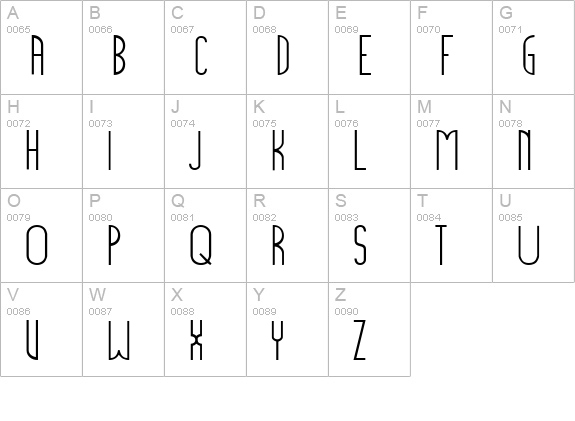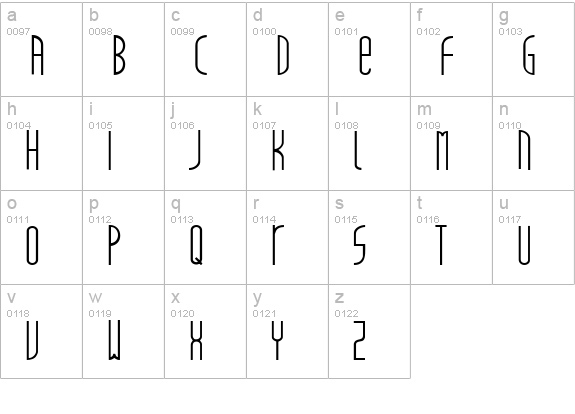
mainstreet Font Details
Mainstreet font is a beautifully crafted typeface that exudes a sense of elegance and sophistication. Its sleek and modern design makes it perfect for a wide range of projects, from logos and branding to posters and signage. With its clean lines and balanced proportions, Mainstreet font effortlessly catches the eye and adds a touch of professionalism to any design. What sets Mainstreet font apart is its versatility and adaptability. Whether you're working on a sleek and minimalist design or a bold and vibrant one, this font can effortlessly adapt to any style or theme. Its wide range of weights and styles allows for endless possibilities, making it a go-to choice for designers who value flexibility and creativity. But what truly makes Mainstreet font stand out is the fact that it is available for free. Yes, you read that right – Mainstreet font can be freely downloaded at FontsMarket.com. This means that you can enjoy all the benefits and beauty of this stunning typeface without having to spend a dime. It's a rare opportunity to access such a high-quality font without any cost, and FontsMarket.com is proud to make it available to designers and typographers around the world. So why wait? Don't miss out on the chance to enhance your designs with the elegance and versatility of Mainstreet font. Download it for free at FontsMarket.com and unlock a world of possibilities for your next project. Whether you're a professional designer or a hobbyist, Mainstreet font is the perfect addition to your font collection. Get ready to elevate your designs to new heights with this stunning typeface.